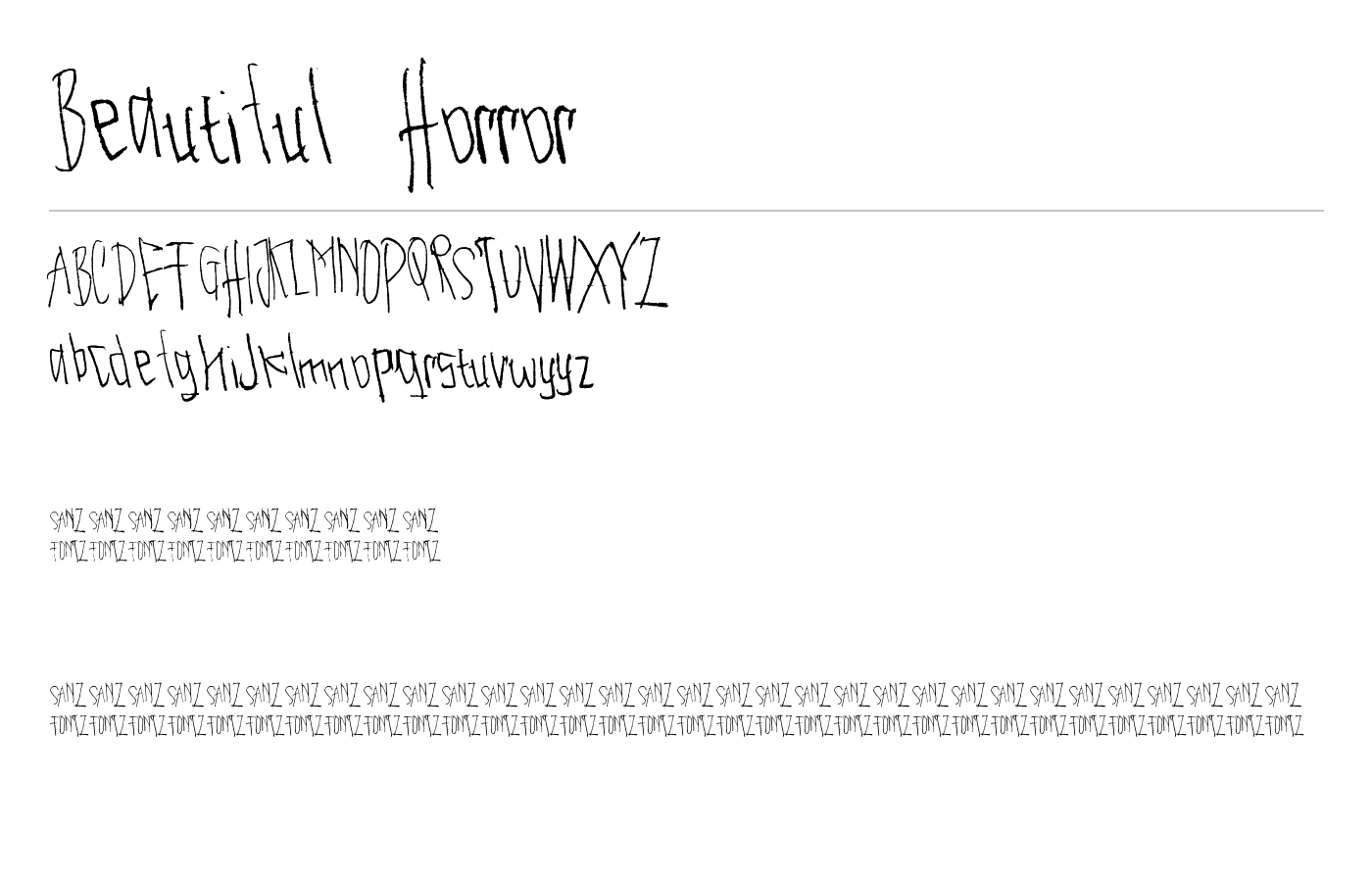
Beautiful Horror Font is a handwritten, narrow, and tall sans serif typeface with an eerie, uneven stroke style that evokes a spooky, unsettling vibe. Its irregular letterforms and quirky details make it perfect for horror-themed designs, Halloween projects, or any creative work that needs a touch of creepy charm and a handmade feel. This font works best in headlines, posters, and branding where a distinctly eerie and expressive look is desired.
Beautiful Horror Font
About Beautiful Horror Font